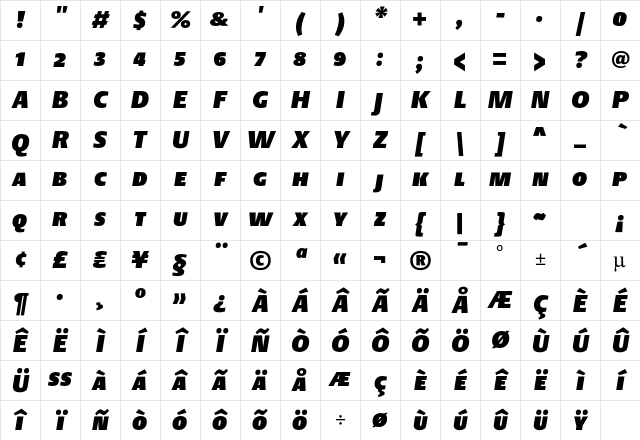
Complete DTLArgoTCaps UltraHeavyItalic glyph index. Displaying only characters natively supported by DTLArgoTCaps UltraHeavyItalic font.
DTLArgoTCaps is a composed and adaptable typeface that performs quietly and consistently across a wide range of design contexts. The slanted form adds forward momentum and visual energy.